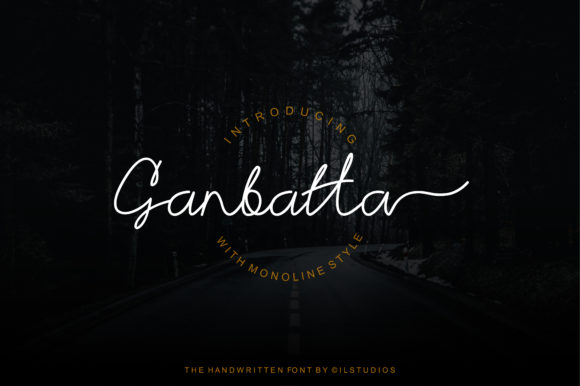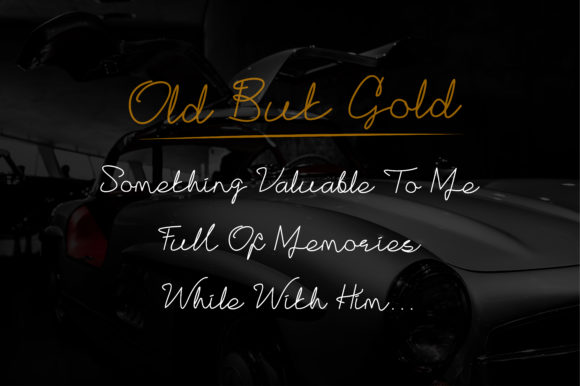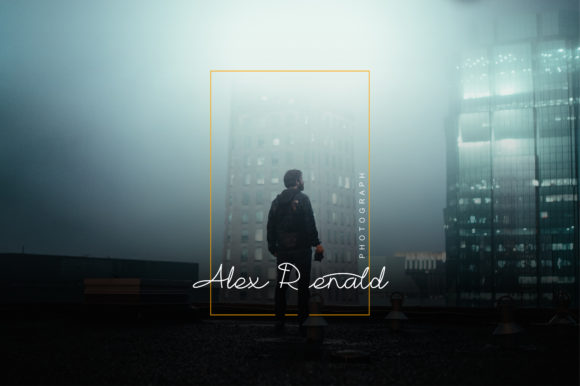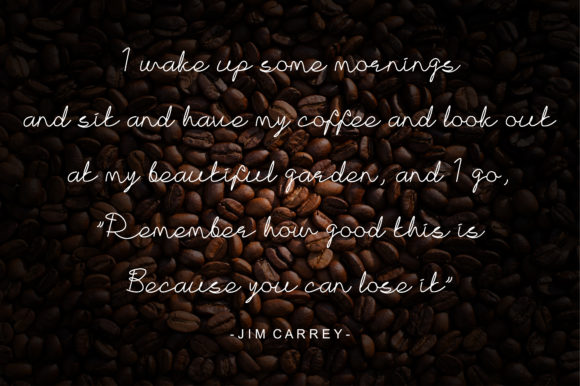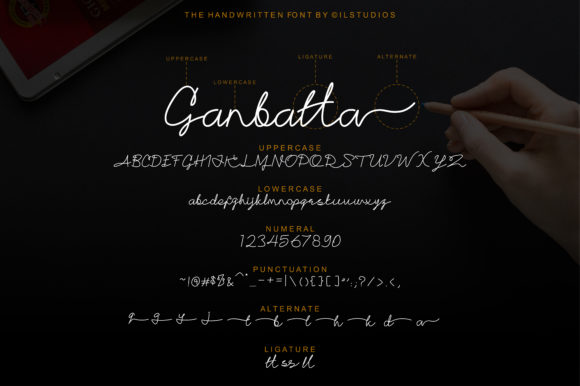
Ganbatta Font
About Ganbatta Font
Ganbatta is modern monoline style script font. Every sinefgle letter has been carully crafted to make your text look beautiful.